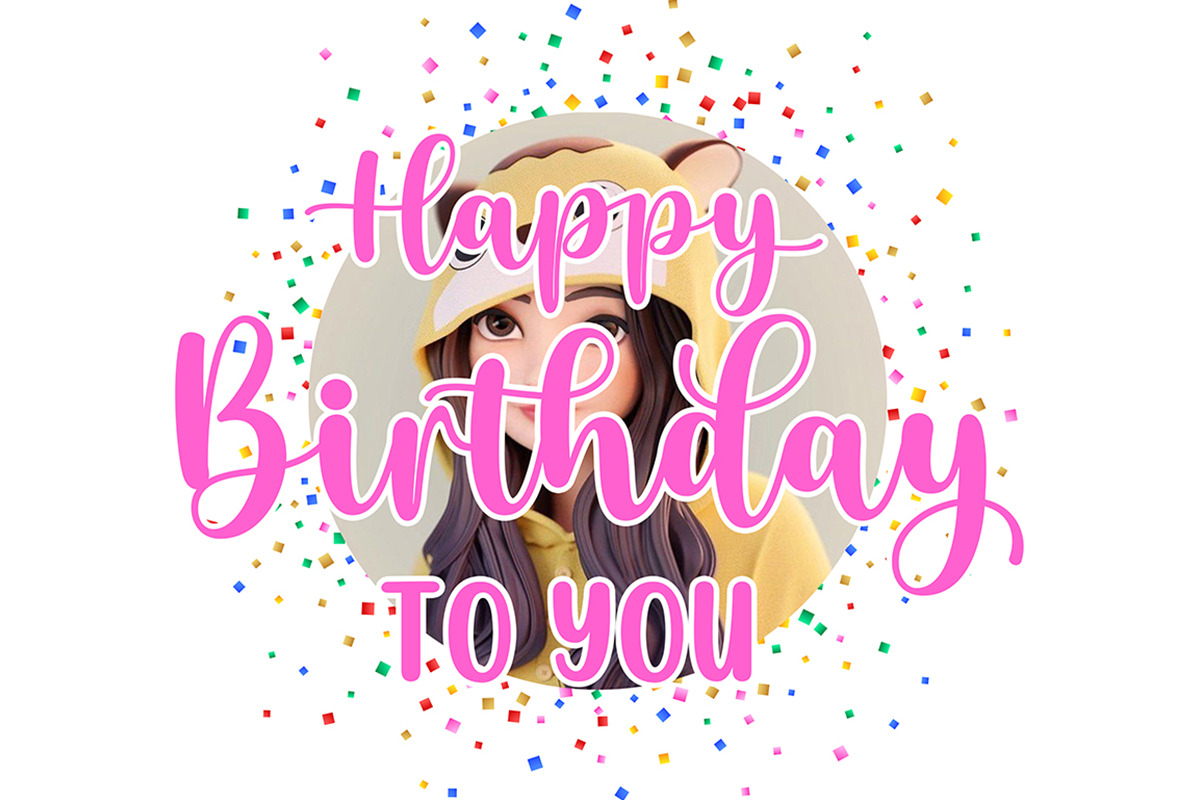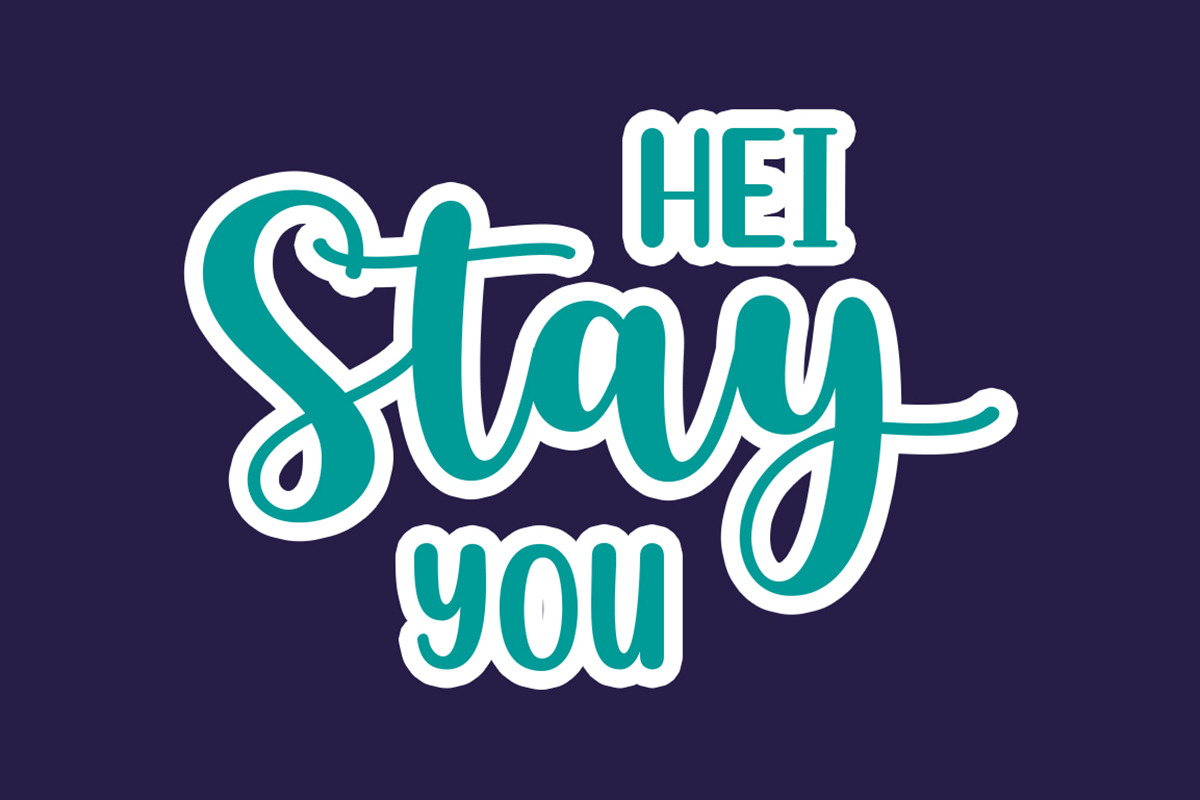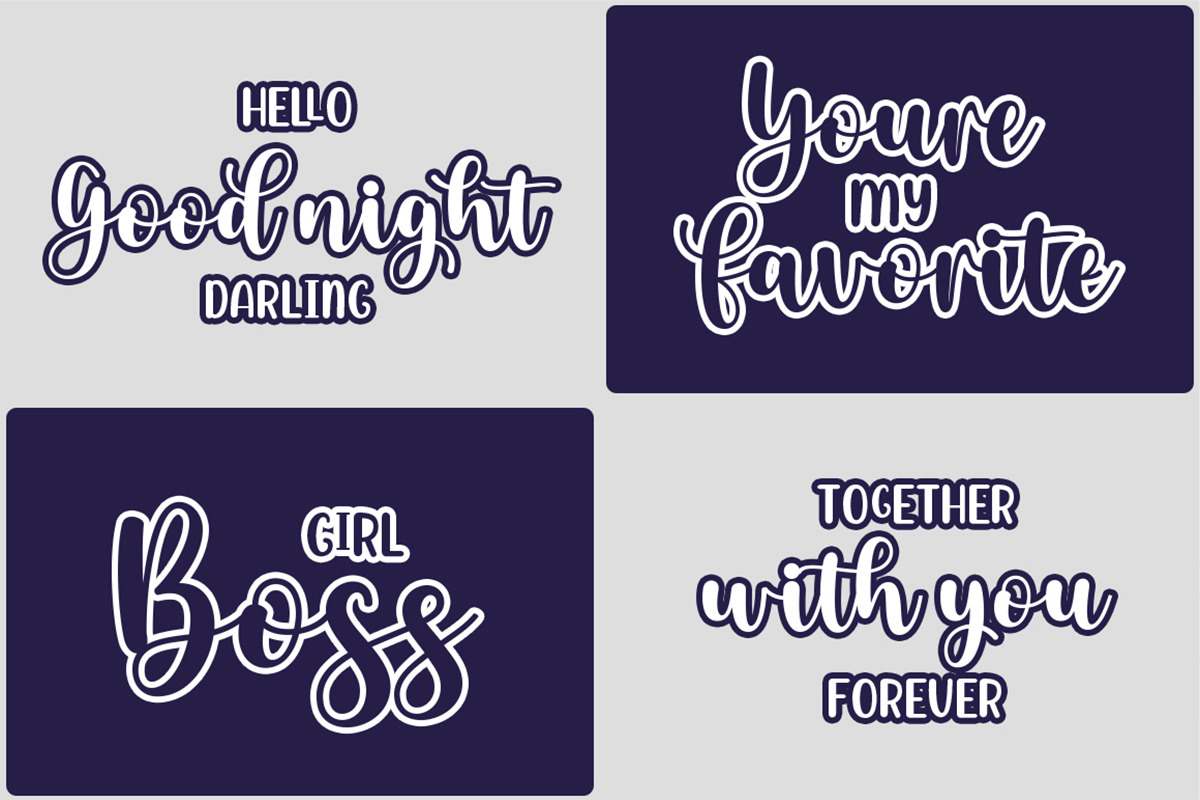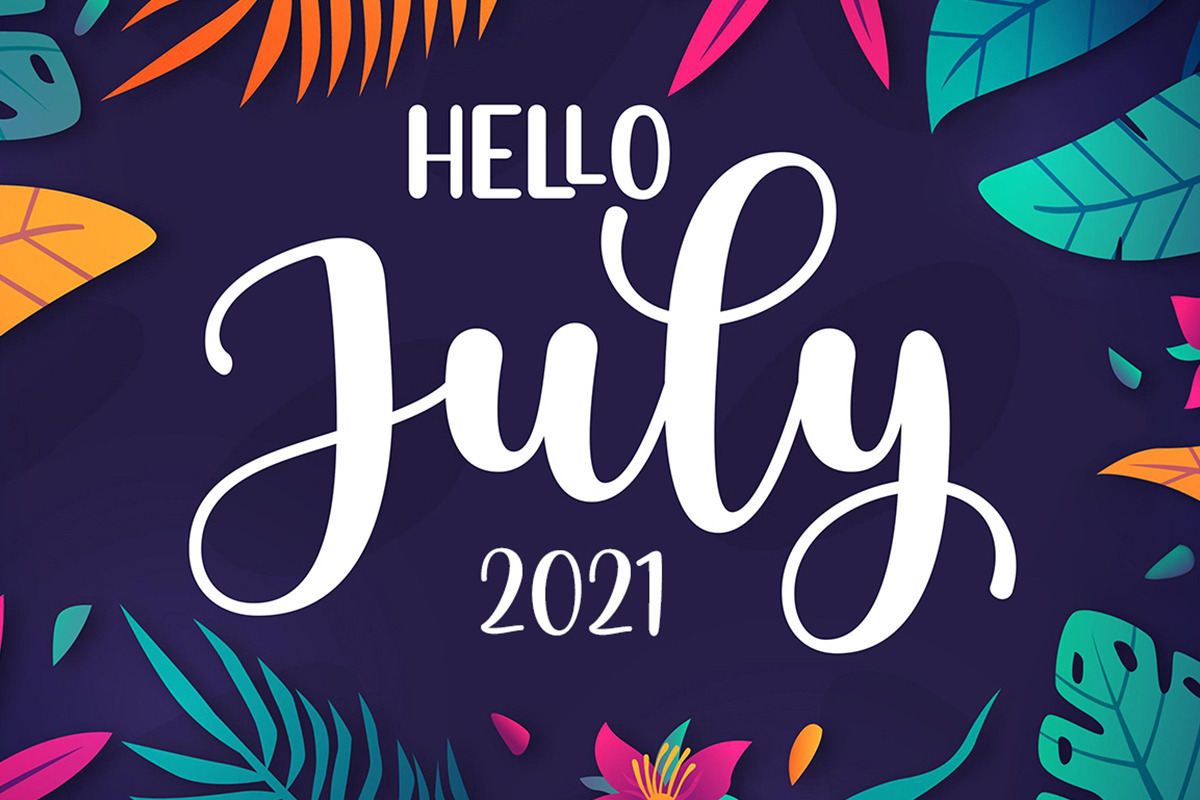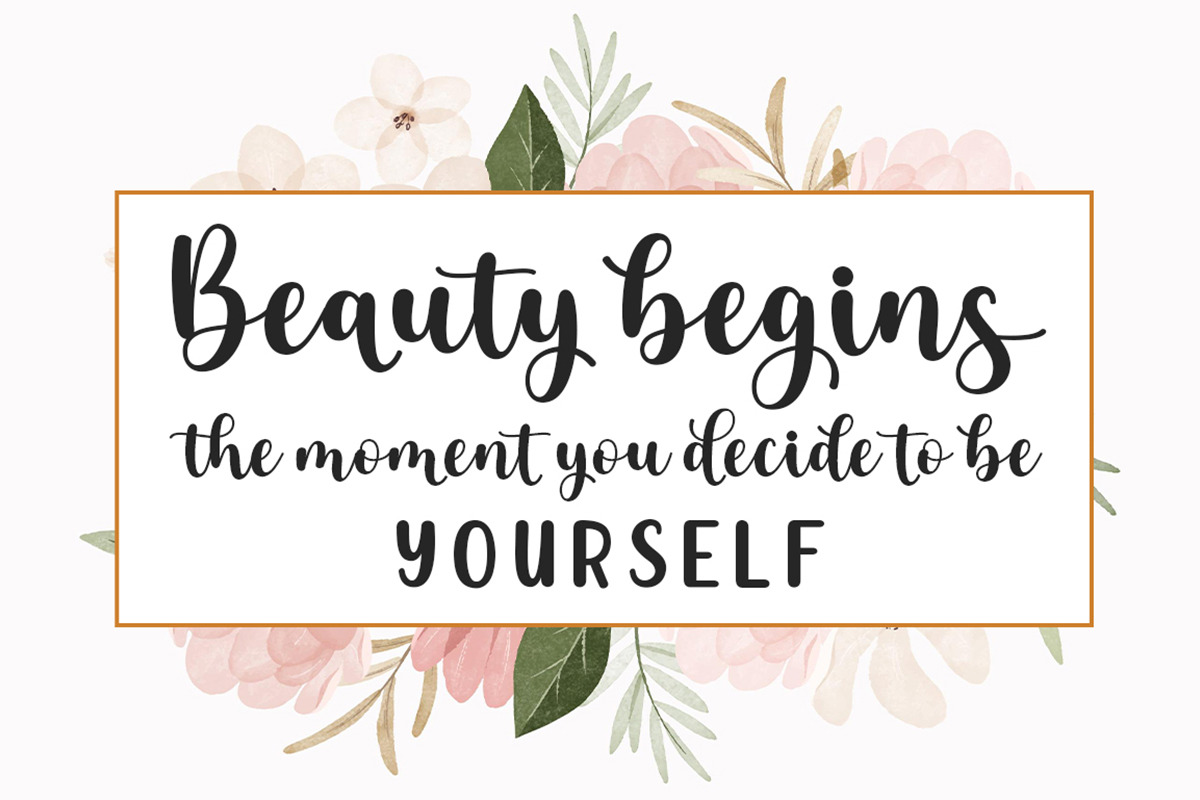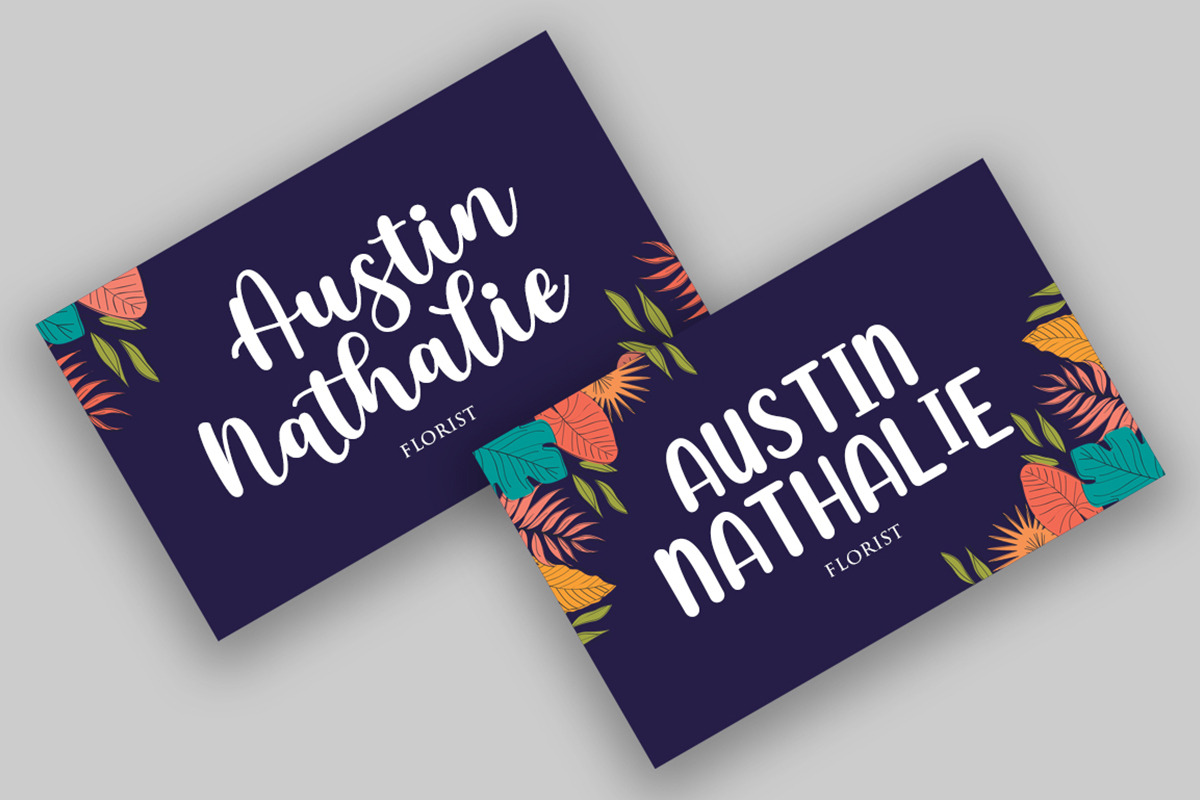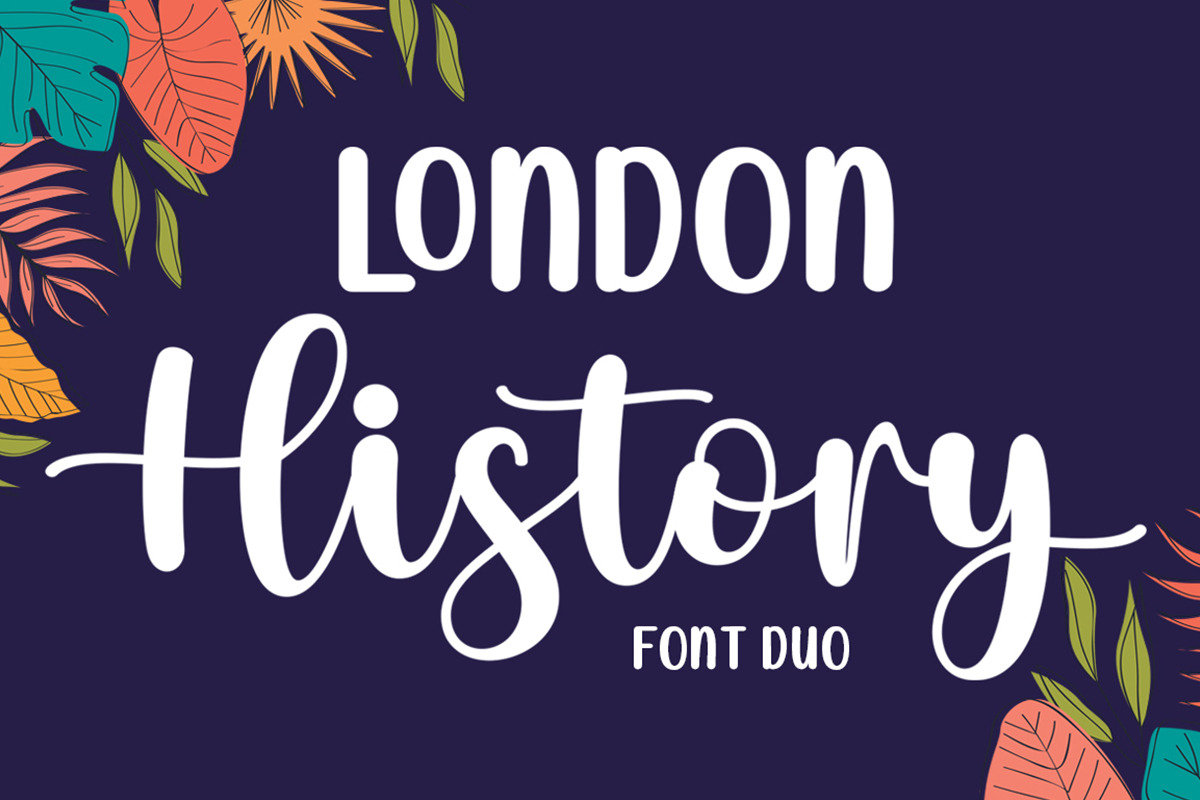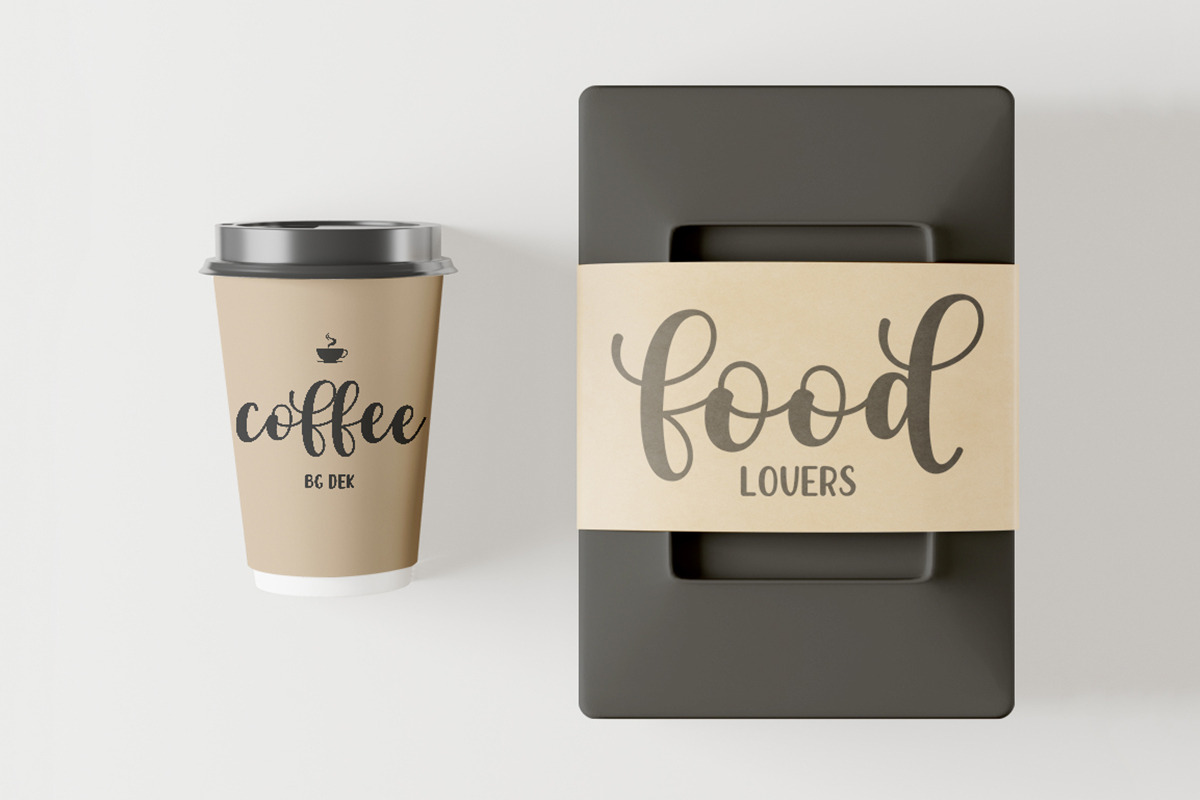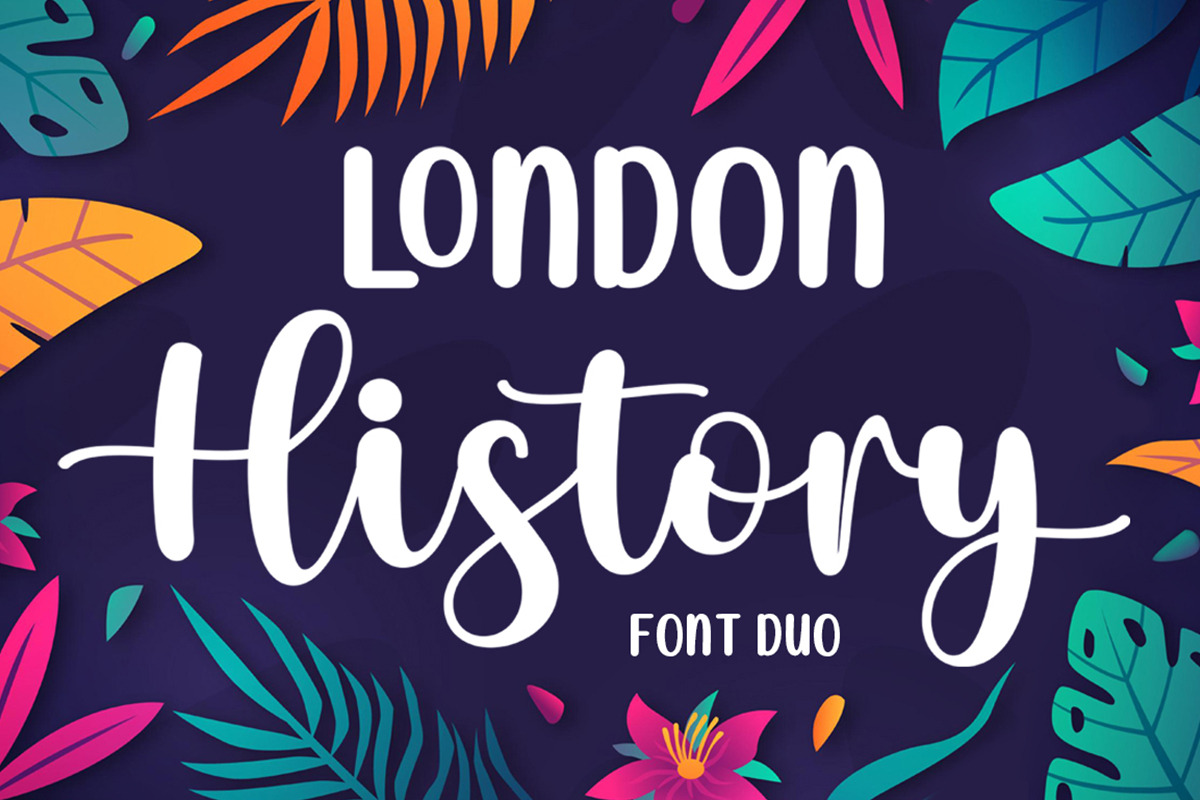
London History - Font Duo
Introducing London History a quirky casual handwritten font duo with a flowy script and a sans font to go with it! The font duo is perfect for branding, logo, wedding invitations, greeting cards, fashion, and all so much more!